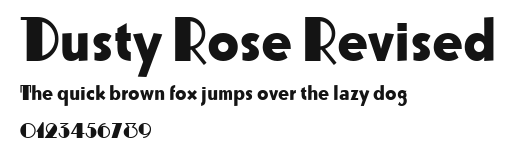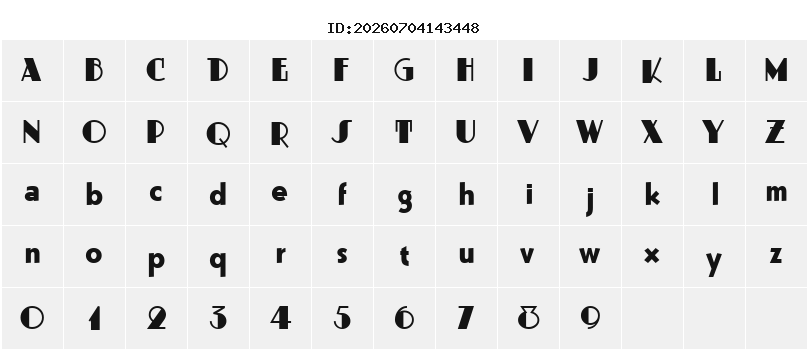
• Font Name: Dusty Rose Revised
• Full Font Name: Dusty Rose Revised
About Dusty Rose Revised.ttf
Dusty Rose Revised.ttf is a modern, elegant sans-serif font designed for ultimate readability and visual harmony. Perfect for branding, headlines, web design, and print materials.